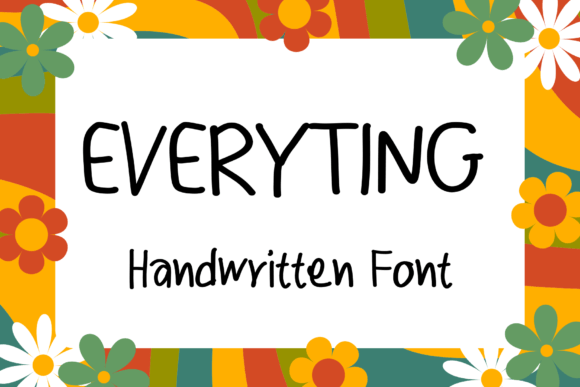
Unleash a captivating blend of flair and legibility with Everyting, the most sought-after script font that embodies the essence of modern flair. Its stylish curves and meticulously crafted details are designed to make a bold statement in any creative project. Whether it's a resume that demands attention or a wedding invitation that radiates elegance, Everyting is the key to unlocking an unforgettable impression.
Immerse yourself in the versatility of Everyting, a font that seamlessly adapts to a myriad of projects. From digital designs that demand attention to invitations that exude charm, Everyting effortlessly elevates your words into works of art. Unleash your imagination and let this font guide you to new heights of creativity.
Escape the mundane and embrace the extraordinary with Everyting, a font that sparks joy and ignites passion. Its playful personality adds a touch of whimsy to your creations, while its refined elegance ensures a timeless appeal. Step into a world of endless possibilities, where Everyting empowers you to craft designs that captivate and inspire.
Indulge in the artistry of Everyting, meticulously crafted by Digital Creative Art, a visionary collective renowned for their dedication to excellence. Each stroke, each curve, each detail is a testament to their unwavering commitment to quality. Immerse yourself in the world of Everyting and unlock the gateway to design brilliance.